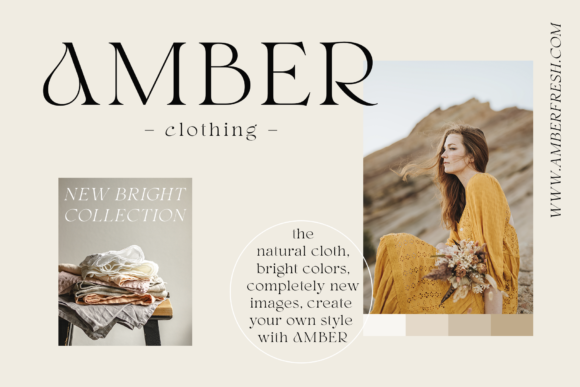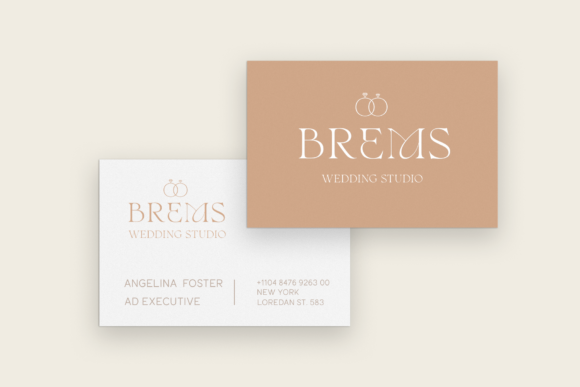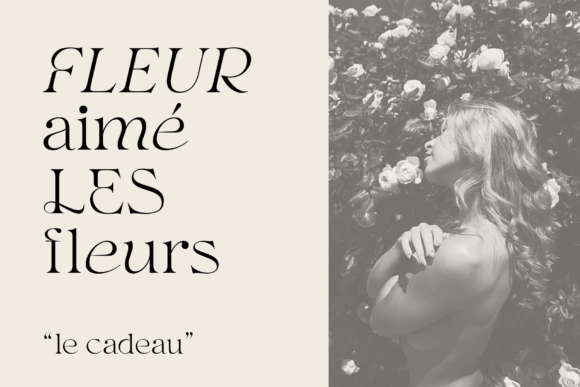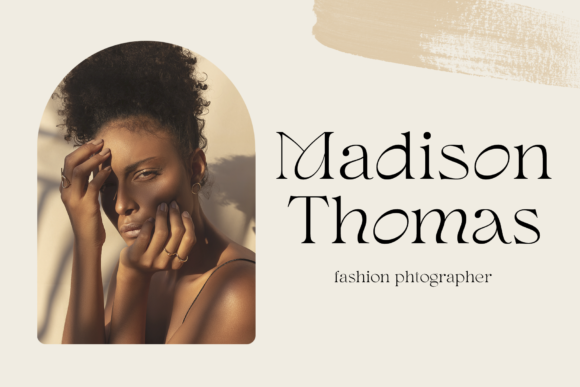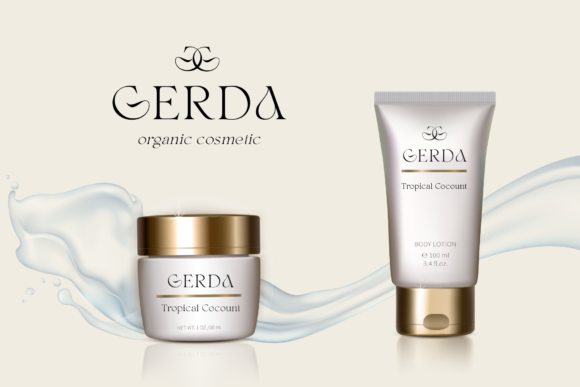
The Designer’s Delight: A Deep Dive into Hermitage Font
I’ll never forget the time I was working on a fashion branding project, and my client asked for a font that was both elegant and modern. I scoured the internet, tried out countless fonts, but nothing seemed quite right. That was until I stumbled upon Hermitage Font. ✨ It was like a breath of fresh air – sleek, sophisticated, and effortlessly chic. In this article, I’ll share my love for Hermitage Font, its features, and how to make the most of it in your designs.
An Honest Review of Hermitage Font
• ✨ Smooth curves and elegant lines that scream sophistication
• ✅ Perfect for fashion branding, editorial designs, and high-end projects
• 💡 Highly legible, even at small font sizes
• 🎨 Versatile and works well with a variety of design styles
While Hermitage Font is an excellent choice, there are a few things to keep in mind:
• 🤔 Limited availability of stylistic alternates, which might limit its use in certain projects
• ⚠️ May not be the best choice for body text or long-form content, as it’s more suited for headlines and titles
The Story Behind Hermitage Font
While the origins of Hermitage Font are shrouded in mystery, it’s said that the font’s designer was inspired by the elegance of 18th-century typography. With its smooth curves and refined lines, it’s no wonder Hermitage Font has become a favorite among designers.
Q: What type of projects is Hermitage Font best suited for?
A: Hermitage Font is perfect for fashion branding, editorial designs, and high-end projects.
Q: Can I use Hermitage Font for body text?
A: While Hermitage Font is highly legible, it’s more suited for headlines and titles. For body text, consider a font with more traditional proportions.
Q: Does Hermitage Font have OpenType features?
A: Yes, Hermitage Font features a range of OpenType features, including ligatures and stylistic alternates.